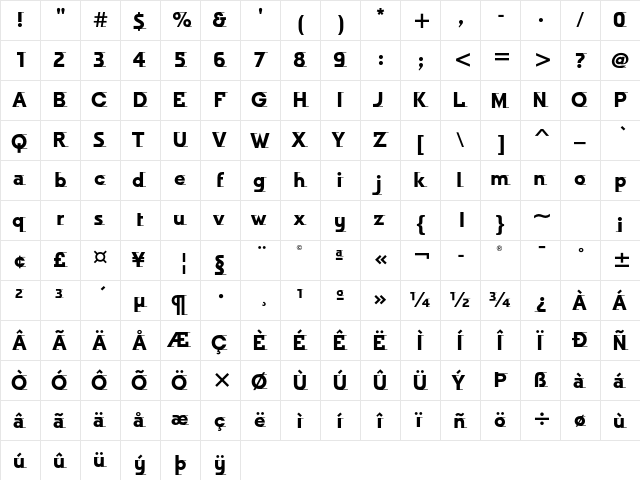
Odyssee ITC Std Bold
| Designer | Roselyne Besnard and Michel Besnard |
Design Context for Odyssee ITC Std Typeface
Odyssee ITC Std is a composed and adaptable typeface that performs quietly and consistently across a wide range of design contexts. Its bold stroke weight gives it real presence on the page.